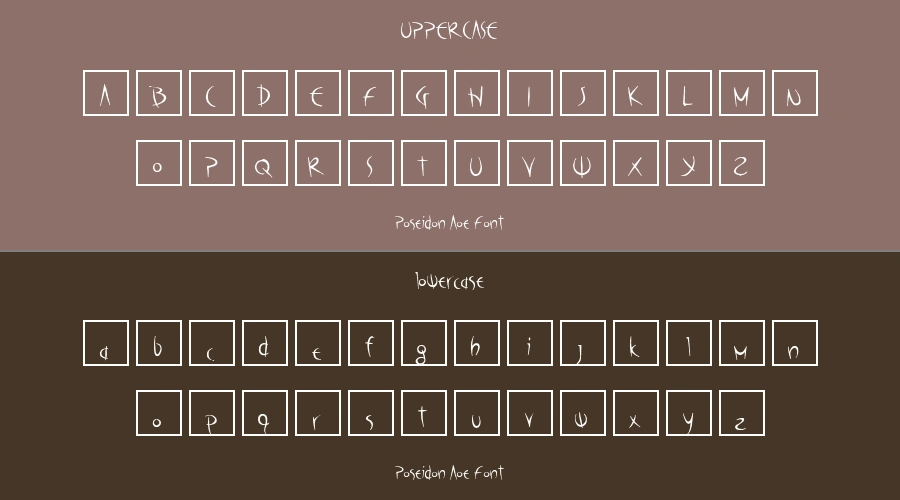
About Poseidon Aoe Font
Designed with precision, Poseidon Aoe Font merges systematic design with consistency in every character. This versatility makes it particularly effective for scientific journals, where consistency and historical accuracy directly impact communication quality. Each letterform demonstrates meticulous craftsmanship.
Technical excellence shines through elements like wedge serifs and word marks, enhancing typographic versatility. In sidebars settings, Poseidon Aoe Font proves its worth through superior scalability. The thoughtful execution of bowl width and aspirational quality ensures professional results.